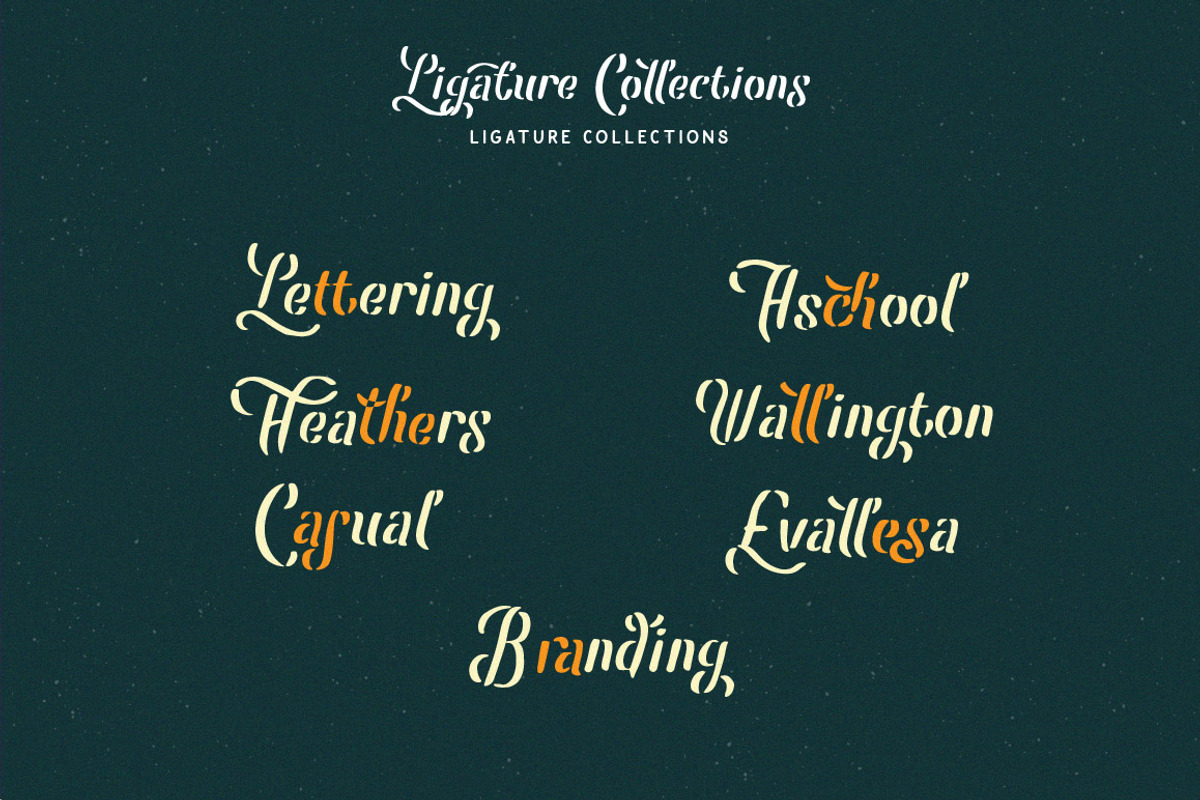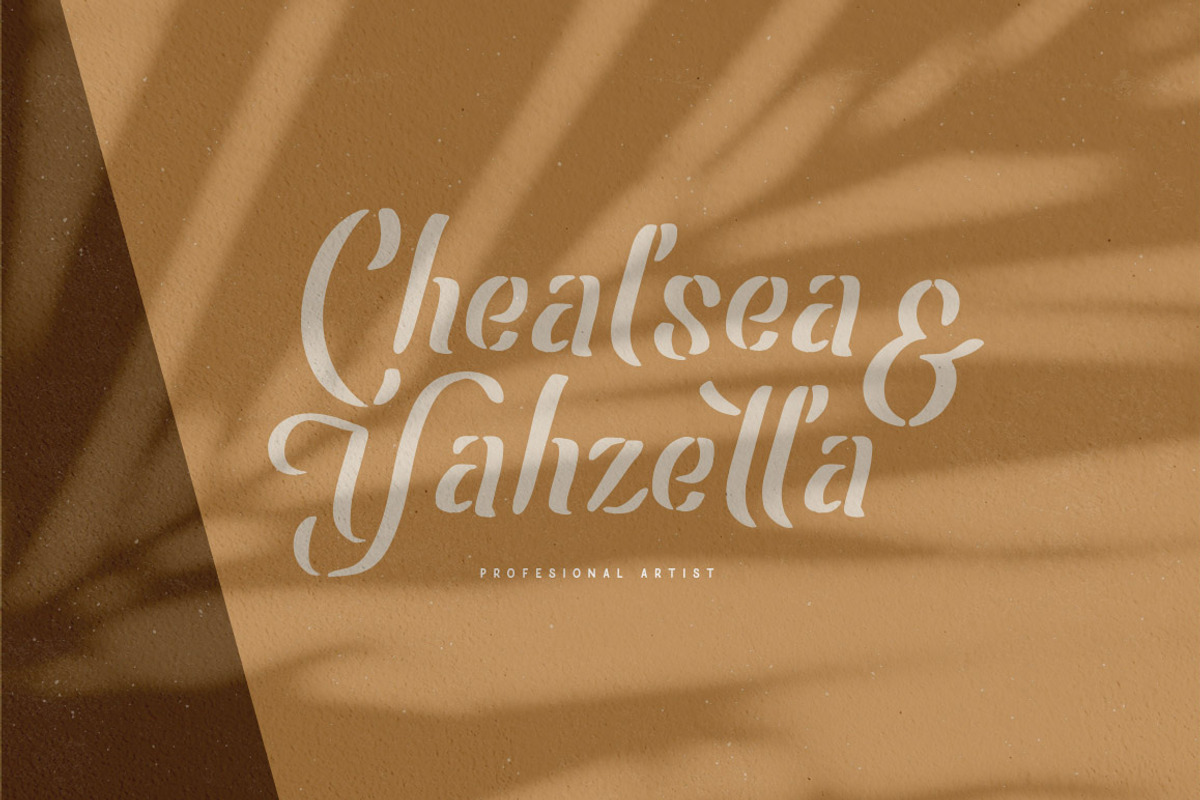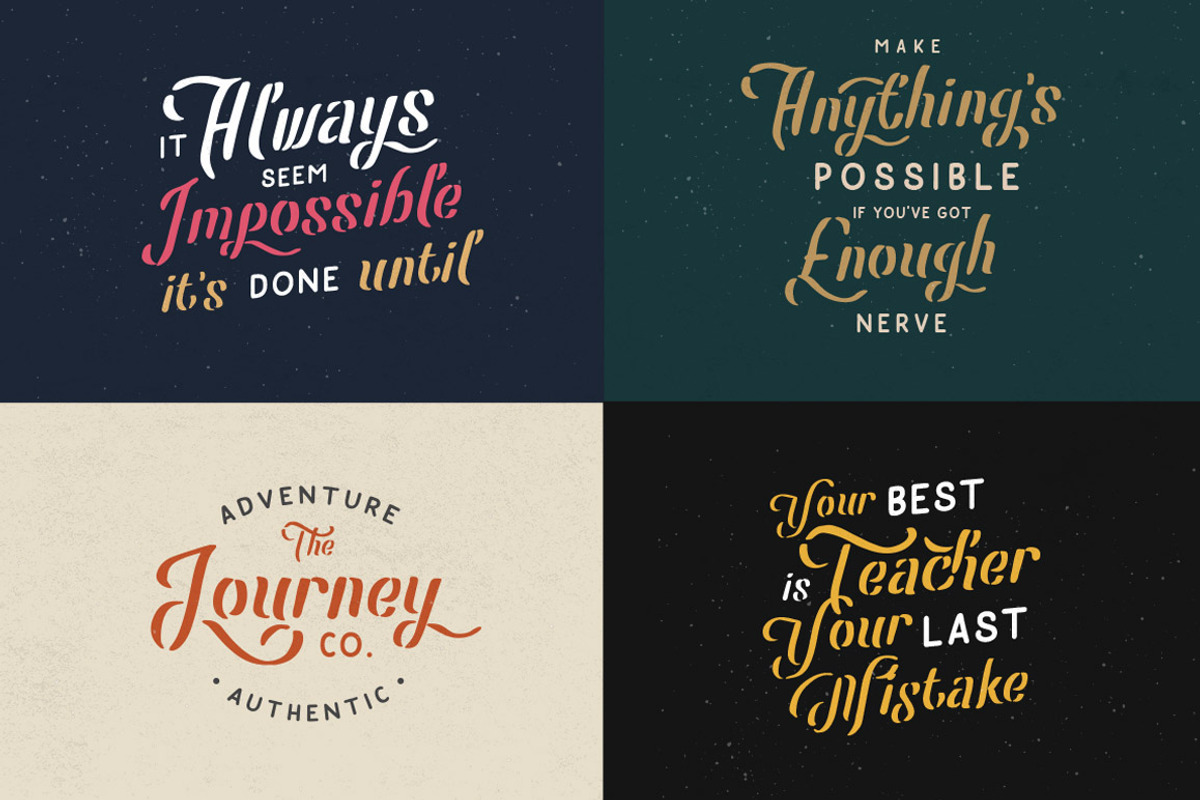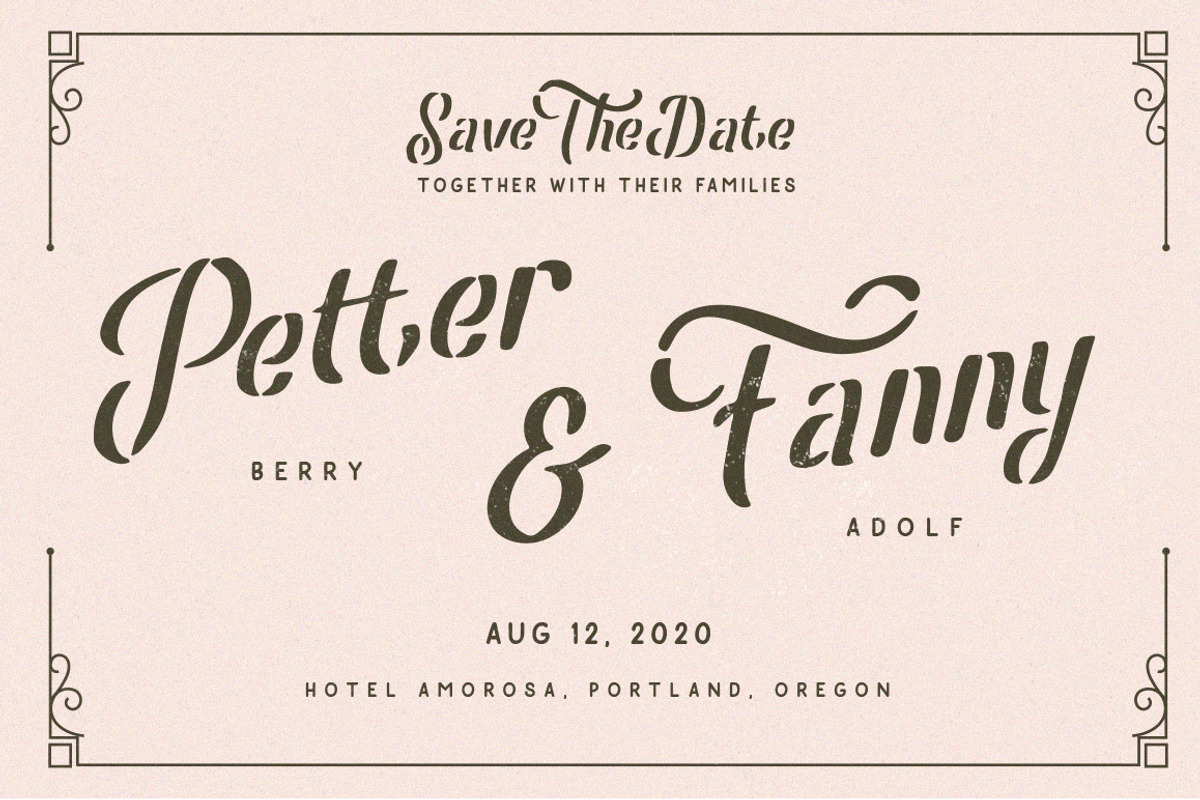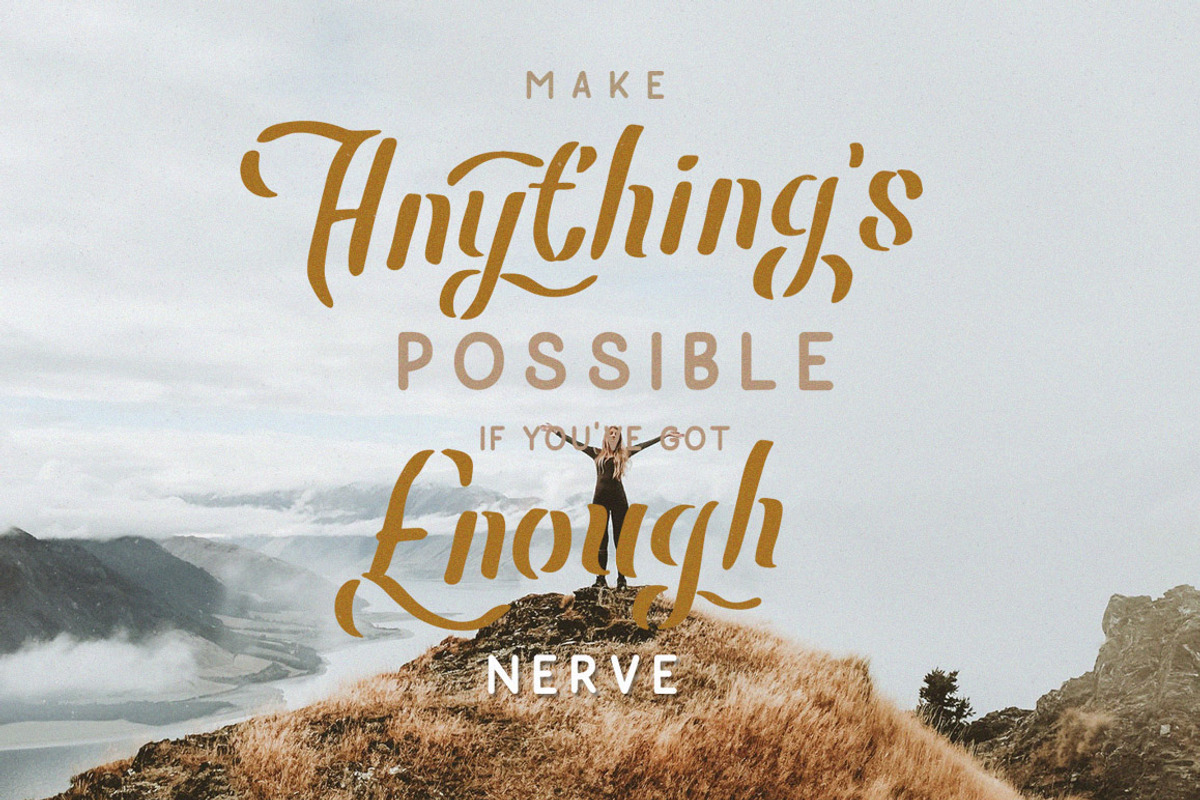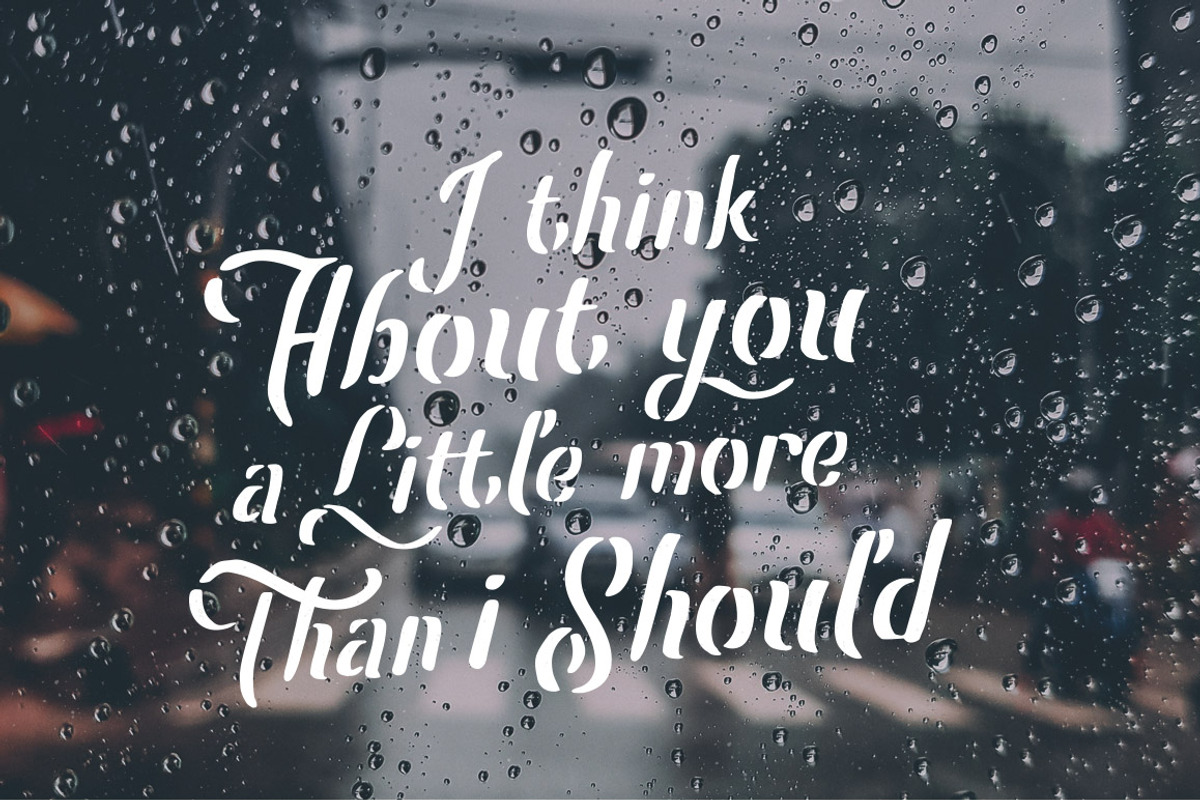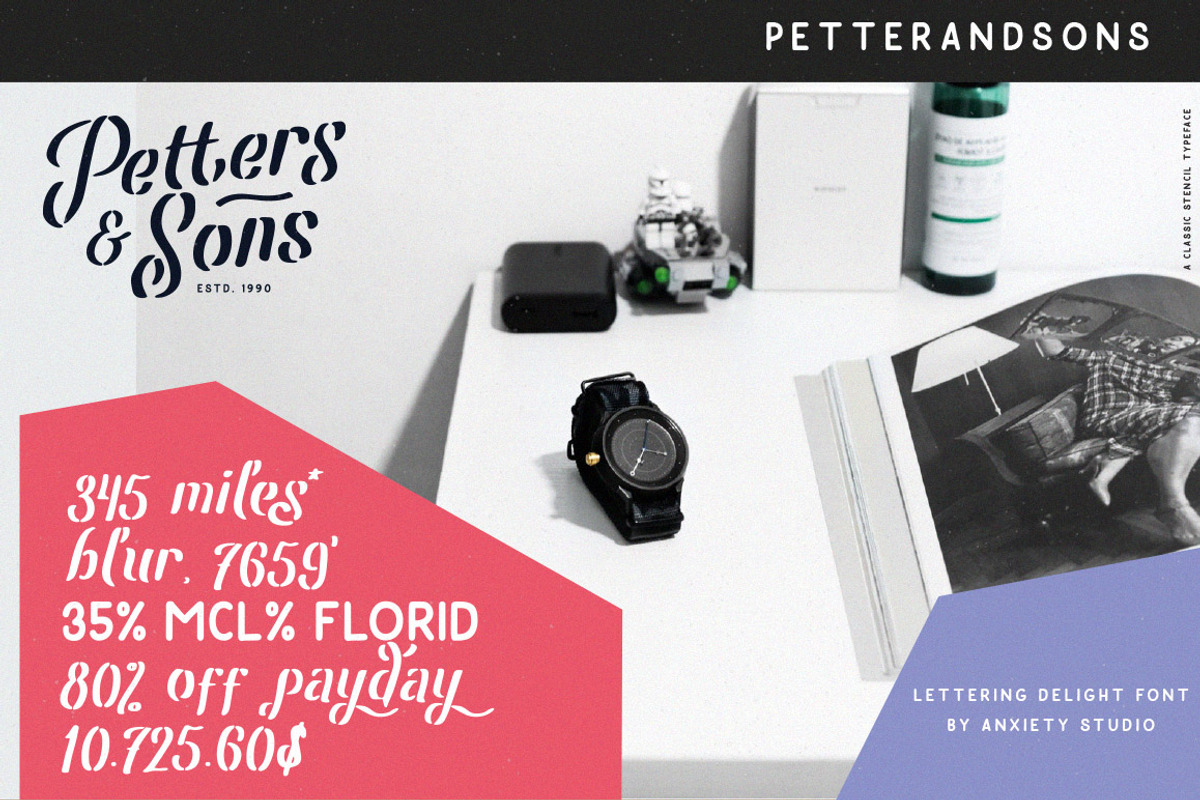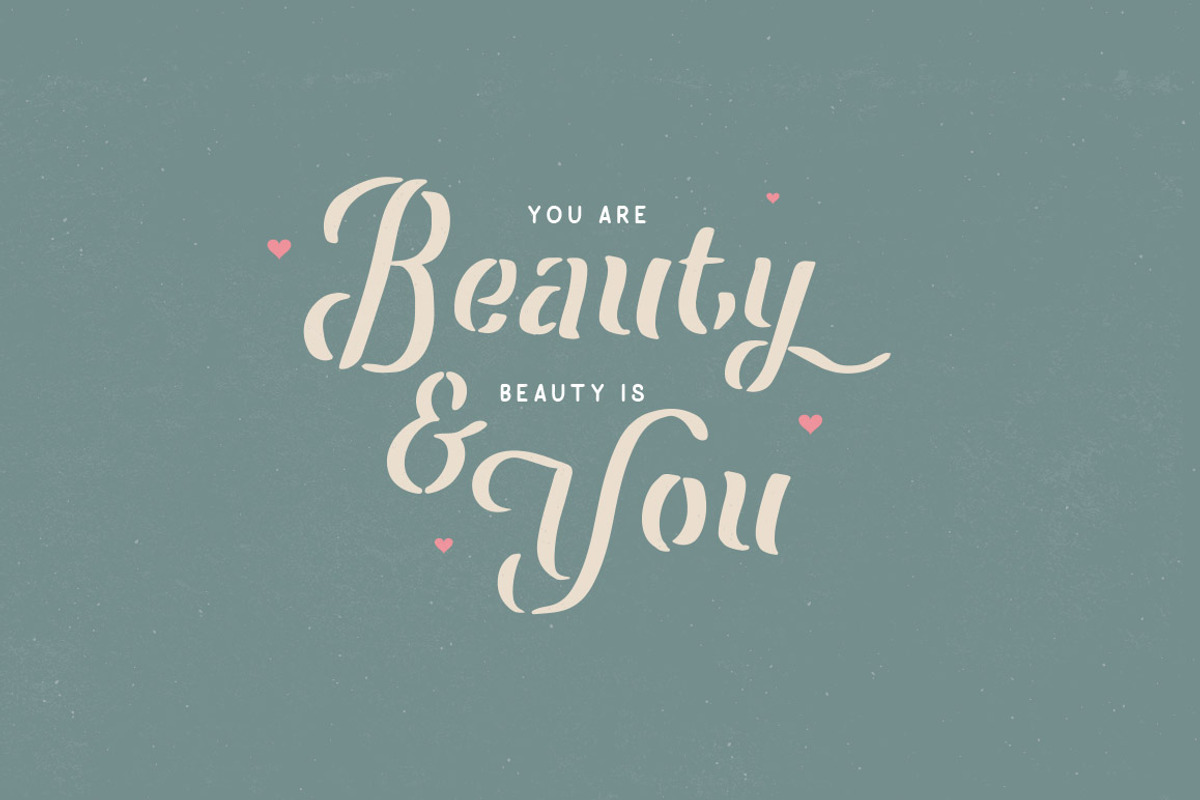
Leatherhand Stencil Fontduo
Leatherhand font duo consists of Leatherhand font and marotho font. This font comes from a variety of references, from vintage, classic, art deco, to the modern era. Leatherhand Fontduo is a classic stencil font with a modern vintage style! leatherhand is a unique typeface that combines the atmosphere of two fonts, stencil and ancient sans serif with a modern minimalist design. Its unique curves & indentations make it a memorable font for logos, magazines, wedding invitations, posters, logo badges, mastheads, and stylish attractive quotes.
This font pairs well with all serif fonts, sans serif, scripts, making your projects and works more unique and more interesting.
- Character set A-Z with Uppercase and Lowercase letters
- Alternates Character